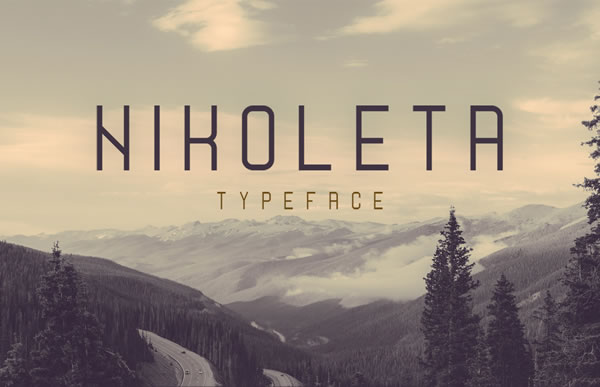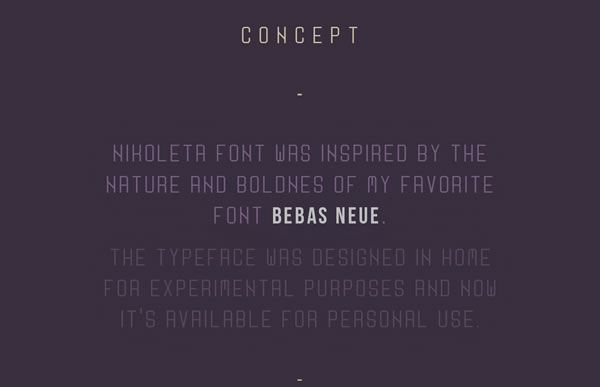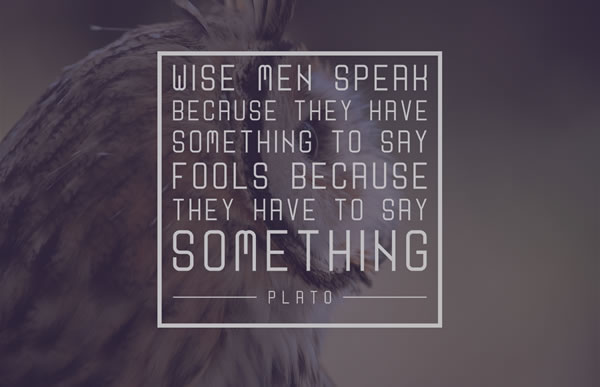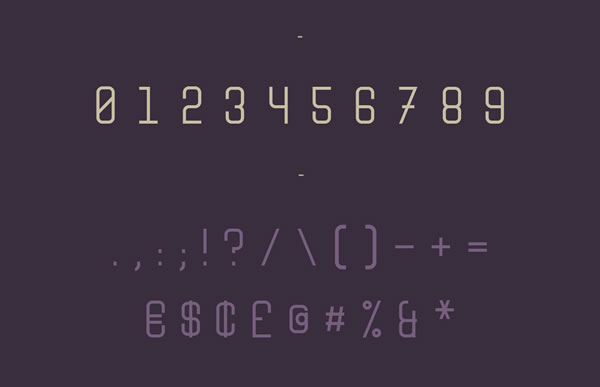
Nikoleta
About Nikoleta Font
Nikoleta is a free sans serif font created by Boris Garic. Nikoleta was inspired by the nature and the boldness of one of Boris’ favorite fonts: Babas Neue.
This font was designed for experimental purposes, but resulted in a elegant font that will suit many types of projects.